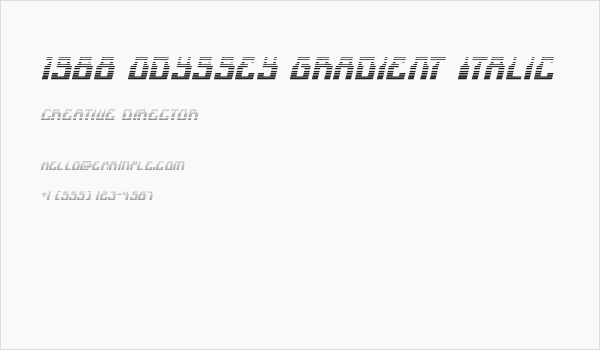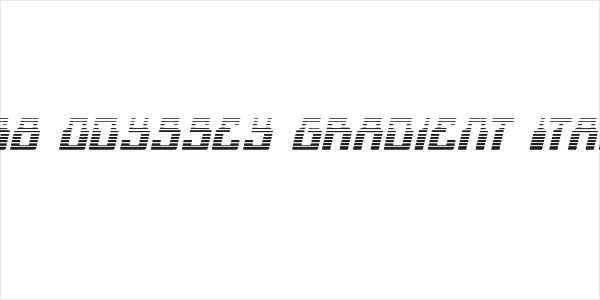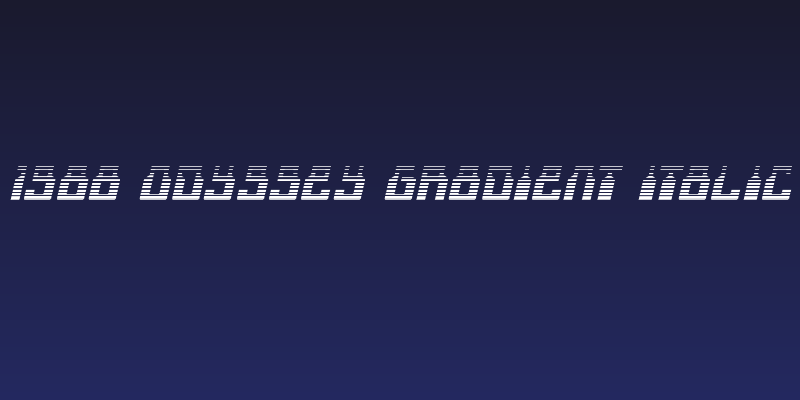
1968 Odyssey Gradient Italic Font
1968 Odyssey Gradient Italic Description
This font features a futuristic and dynamic design, characterized by its gradient-like horizontal lines that create a sense of motion and speed. The italicized style adds to its modern and forward-thinking appearance, making it ideal for projects that require a bold and innovative look. The characters are distinct and easily recognizable, with a unique pattern that sets it apart from traditional fonts. Its geometric structure and consistent line thickness contribute to a cohesive and visually appealing aesthetic.
Proposed ProjectsIdeal for sci-fi themed designs, technology branding, video game titles, and modern advertising.